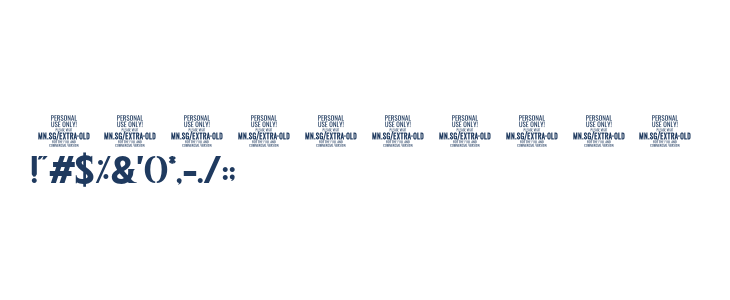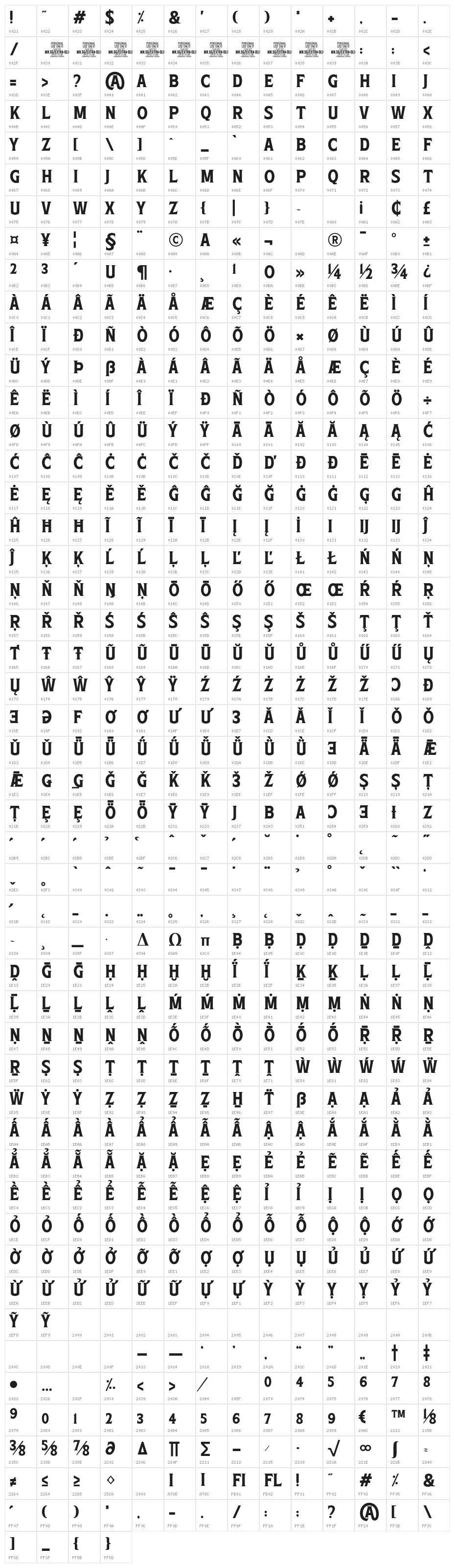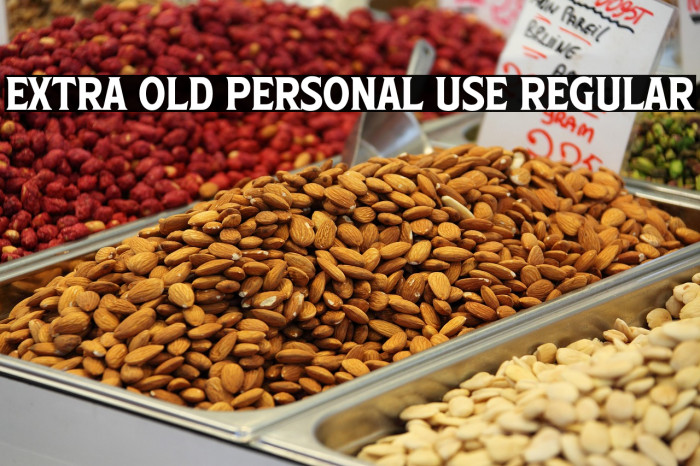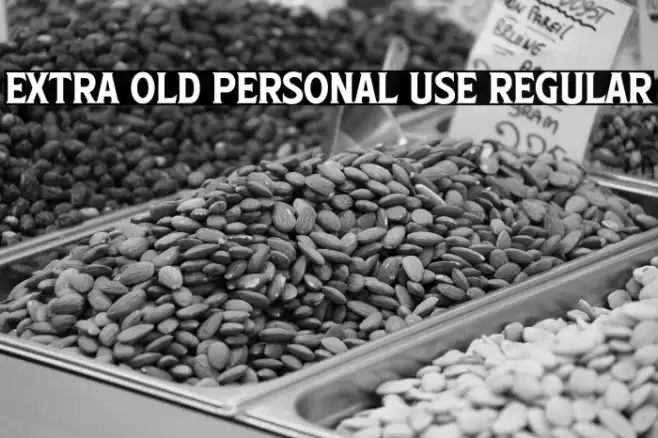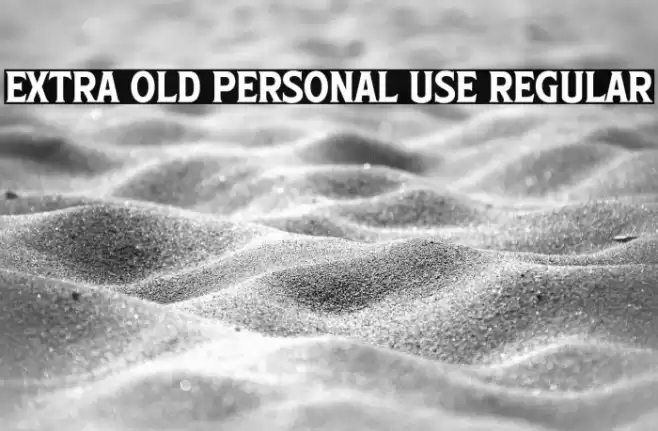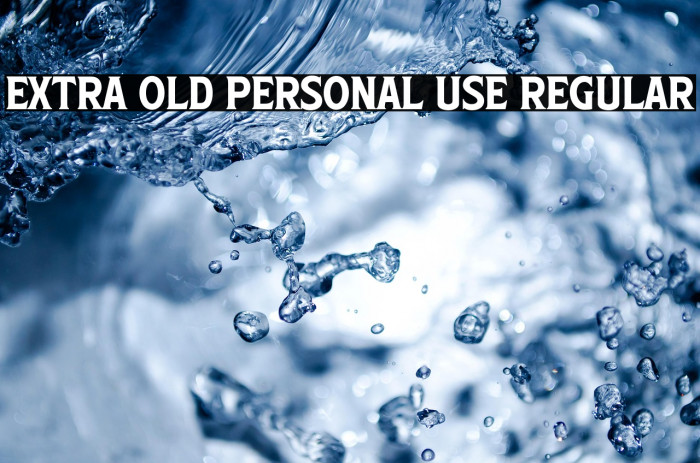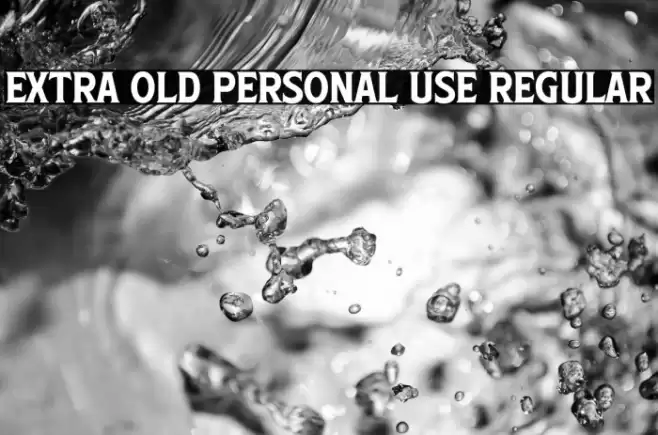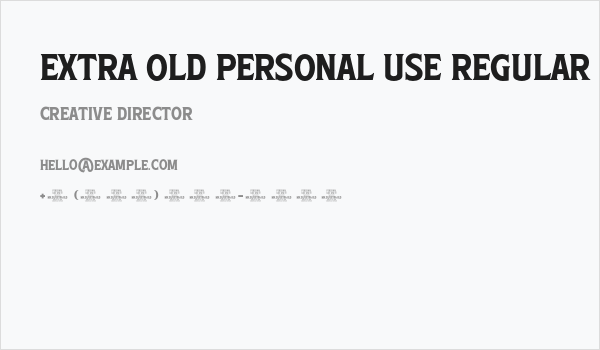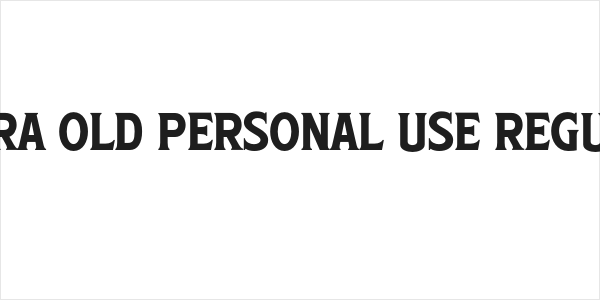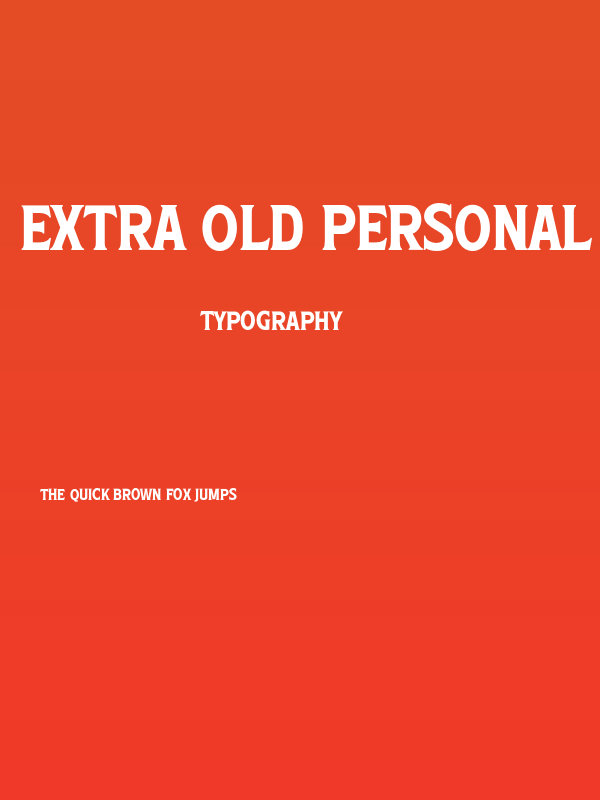
Extra Old PERSONAL USE Regular Font
This font features a bold and commanding presence with its thick, strong strokes and slightly condensed letterforms. The serifs are pronounced, adding a touch of classic elegance while maintaining a robust and sturdy appearance. The uppercase letters are particularly striking, with a uniform height that conveys authority and confidence. The lowercase letters complement the uppercase with a consistent style, ensuring readability and cohesion. The numerals are clear and distinct, making them suitable for various applications. Special characters are well-integrated, maintaining the overall aesthetic of the font.
| Proposed Projects | Ideal for headlines, posters, branding, and any project requiring a strong, authoritative typeface. |